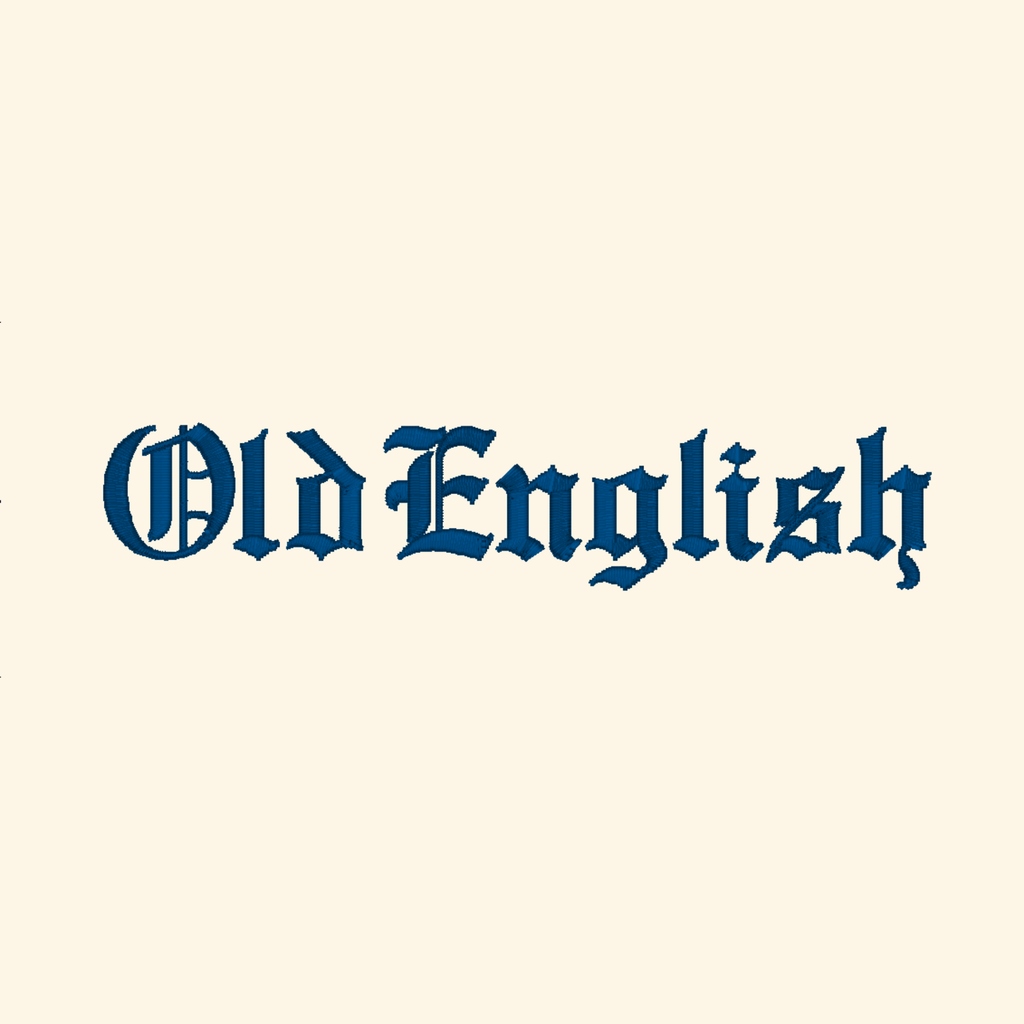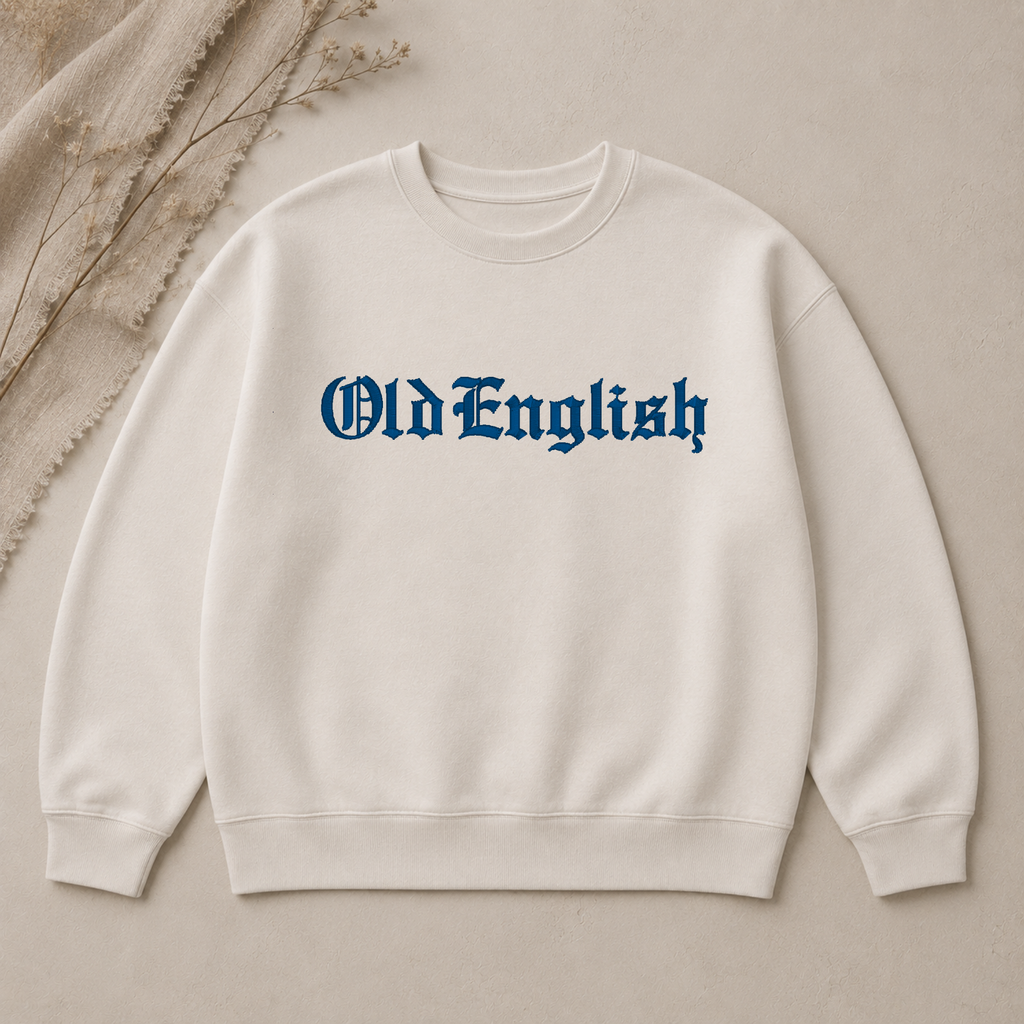
🪡Old English - premium embroidery font.
Take your projects to the next dimension with Old English - professional machine embroidery alphabet! Specially digitized for high-impact results, this font is the perfect choice for creating any item that requires embroidery.